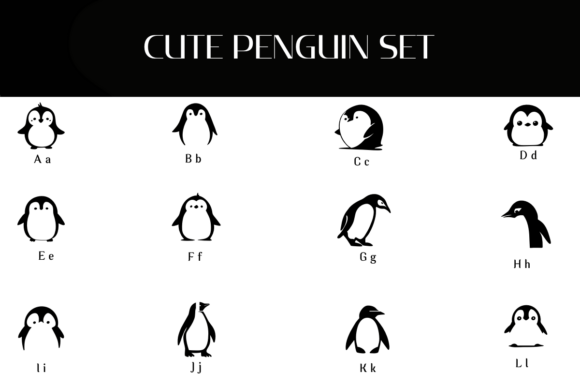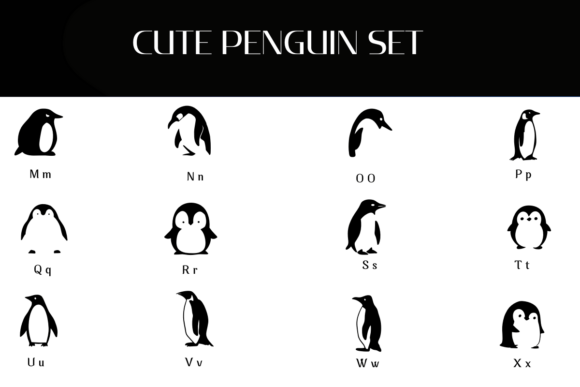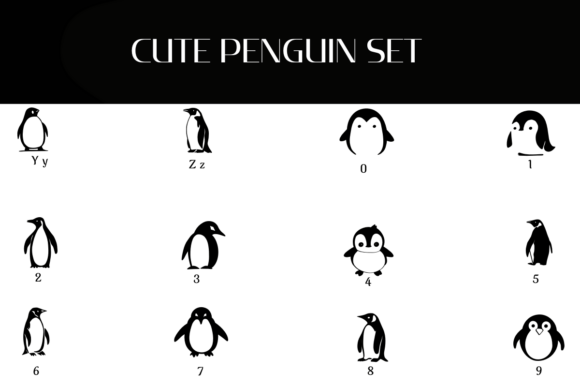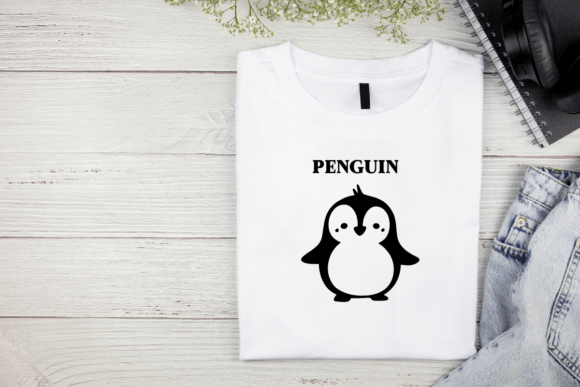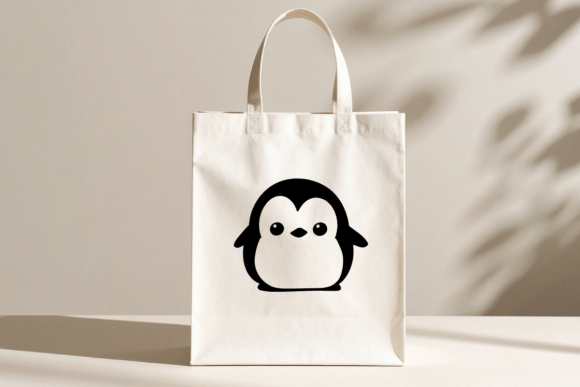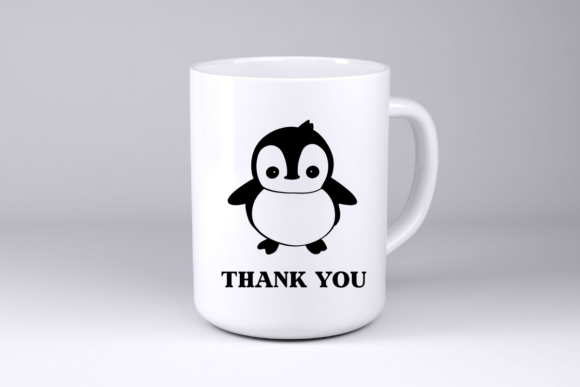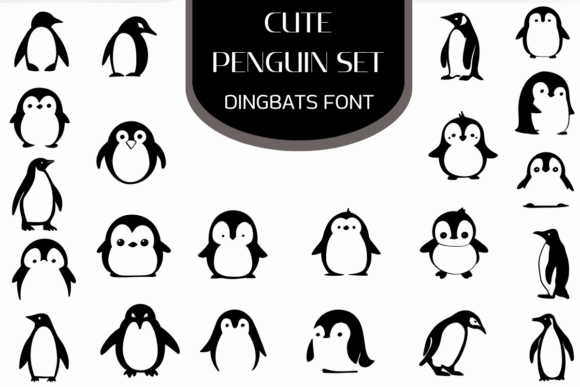
Cute Penguin Set Font: A Delightful Collection of Dingbats for Winter Designs
Are you looking for a unique and playful way to add some winter wonder to your designs? Look no further than the Cute Penguin Set font! This charming collection of dingbats and icons features a wide variety of penguin silhouettes and characters that are sure to bring a frozen world of cuteness to your projects.
What is the Cute Penguin Set Font?
The Cute Penguin Set font is not a traditional alphabet, but rather a delightful collection of dingbats and icons that can be used to add a touch of whimsy to your designs. This typeface features a wide range of penguin silhouettes and characters, ranging from minimalist outlines to chubby, expressive illustrations. Whether you’re working on a winter-themed project, creating educational materials for children, or designing quirky branding for ice cream shops and winter sports gear, this font is a must-have.
The Benefits of Using the Cute Penguin Set Font
Using the Cute Penguin Set font is an efficient way to add high-quality vector-style illustrations to your work without needing to draw them from scratch. Simply type a letter on your keyboard to reveal a different penguin pose! This font can be used in a variety of ways, such as:
- As bullet points in a playful list
- As decorative elements on a holiday card
- As the base for a logo mark
Design Tips for Using the Cute Penguin Set Font
To get the most out of the Cute Penguin Set font, here are a few design tips to keep in mind:
- Pair these icons with a rounded sans-serif font like “Santa Signature” to maintain a soft, friendly aesthetic.
- Use the penguin illustrations as a way to add visual interest to your designs and create a cohesive look.
- Experiment with different colors and textures to bring your designs to life.
The Cute Penguin Set font is perfect for designers and crafters who are looking for a unique and playful way to add some winter wonder to their projects. Whether you’re creating:
- Winter-themed party invitations
- Holiday cards and gift tags
- Educational materials for children
- Quirky branding for ice cream shops and winter sports gear
This font is sure to bring a smile to your face and a touch of whimsy to your designs.
Key Features of the Cute Penguin Set Font
Here are some key features of the Cute Penguin Set font:
- A wide variety of penguin silhouettes and characters
- High-quality vector-style illustrations
- Perfect for winter-themed projects and educational materials